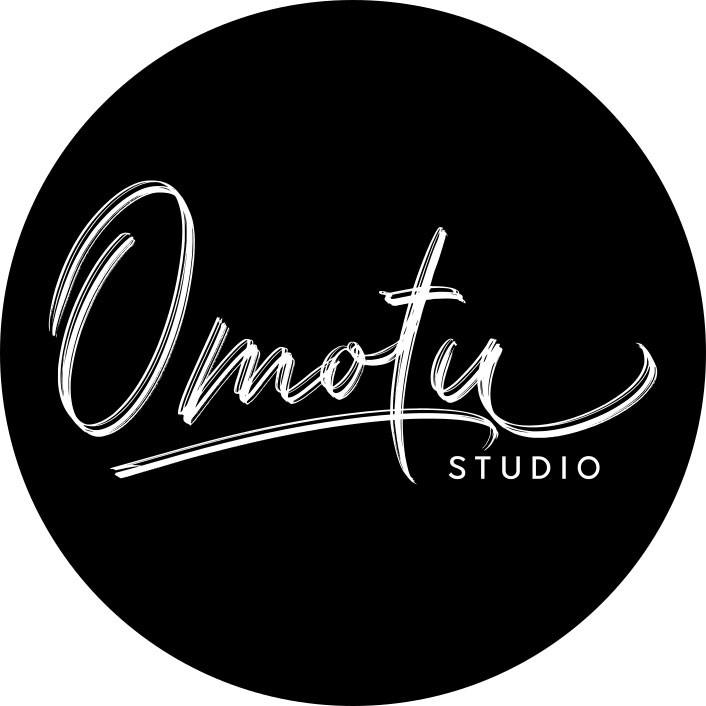
Thalib Font Description
Thalib is a gorgeous and bold handwritten font, crafted to give your headlines and logotype projects a retro touch. This font reads as strong, confident, and dynamic and can add tons of nostalgic character to your designs.